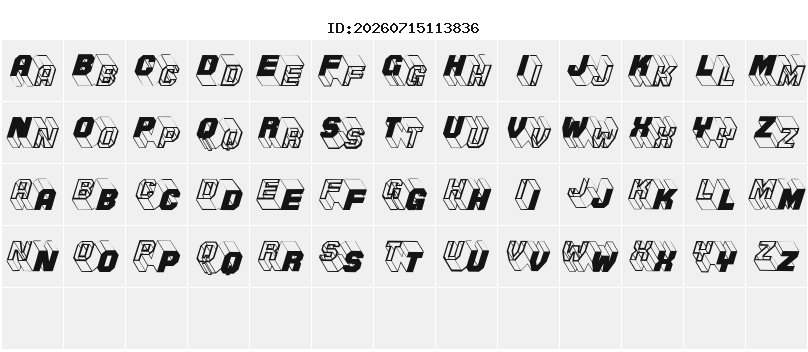
ZigZagTwo Preview
• Font Name: ZigZagTwo
• Font ID: ZigZagTwo
• Full Font Name: ZigZagTwo
• PostScript Name: ZigZagTwo
About ZigZagTwo.ttf
ZigZagTwo.ttf is a modern, elegant sans-serif font designed for ultimate readability and visual harmony. Perfect for branding, headlines, web design, and print materials.